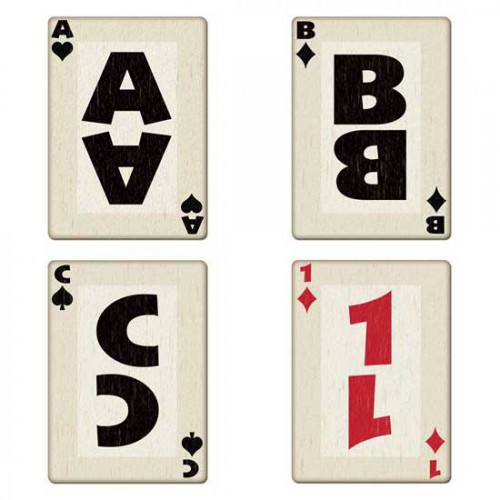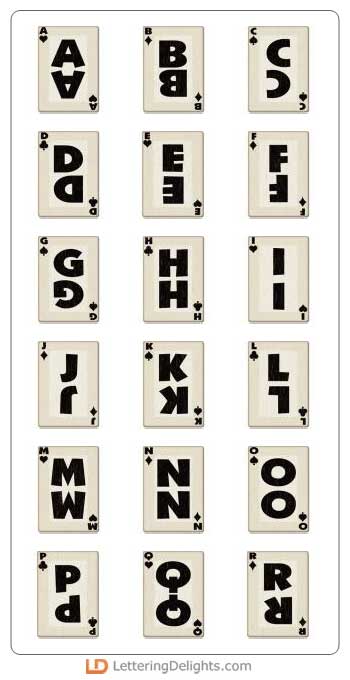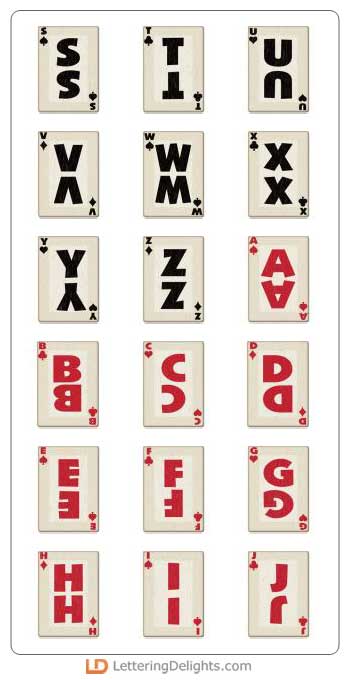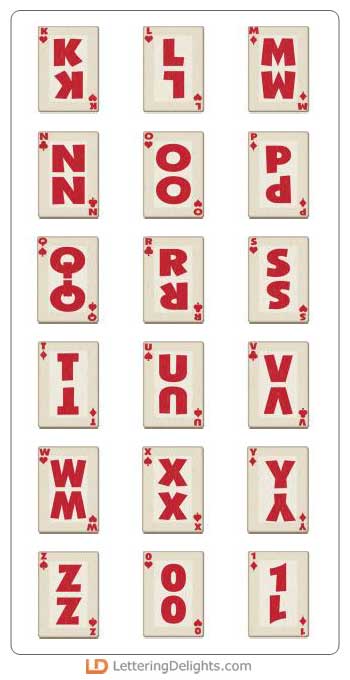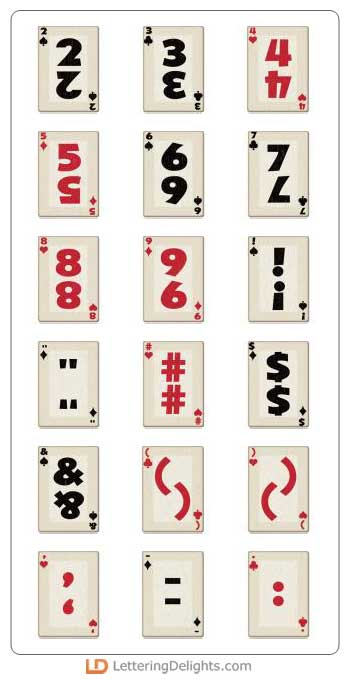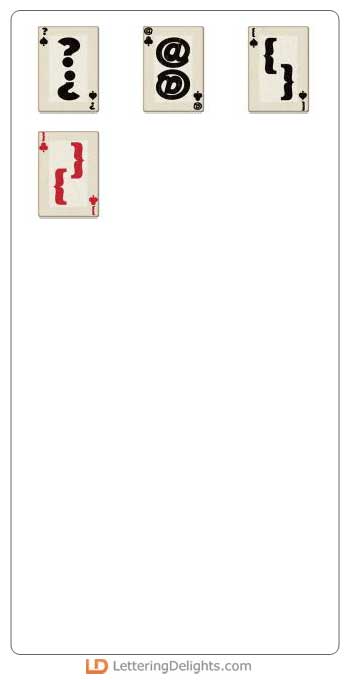
Our family loves to play games together...how about yours? This alphabet is especially fun for inviting in friends and family for a great game night. (btw...there's the hearts and the diamonds of course, but are we the only ones who don't know the real names of the clubs and spades? We call them shovels and puppy tracks!}